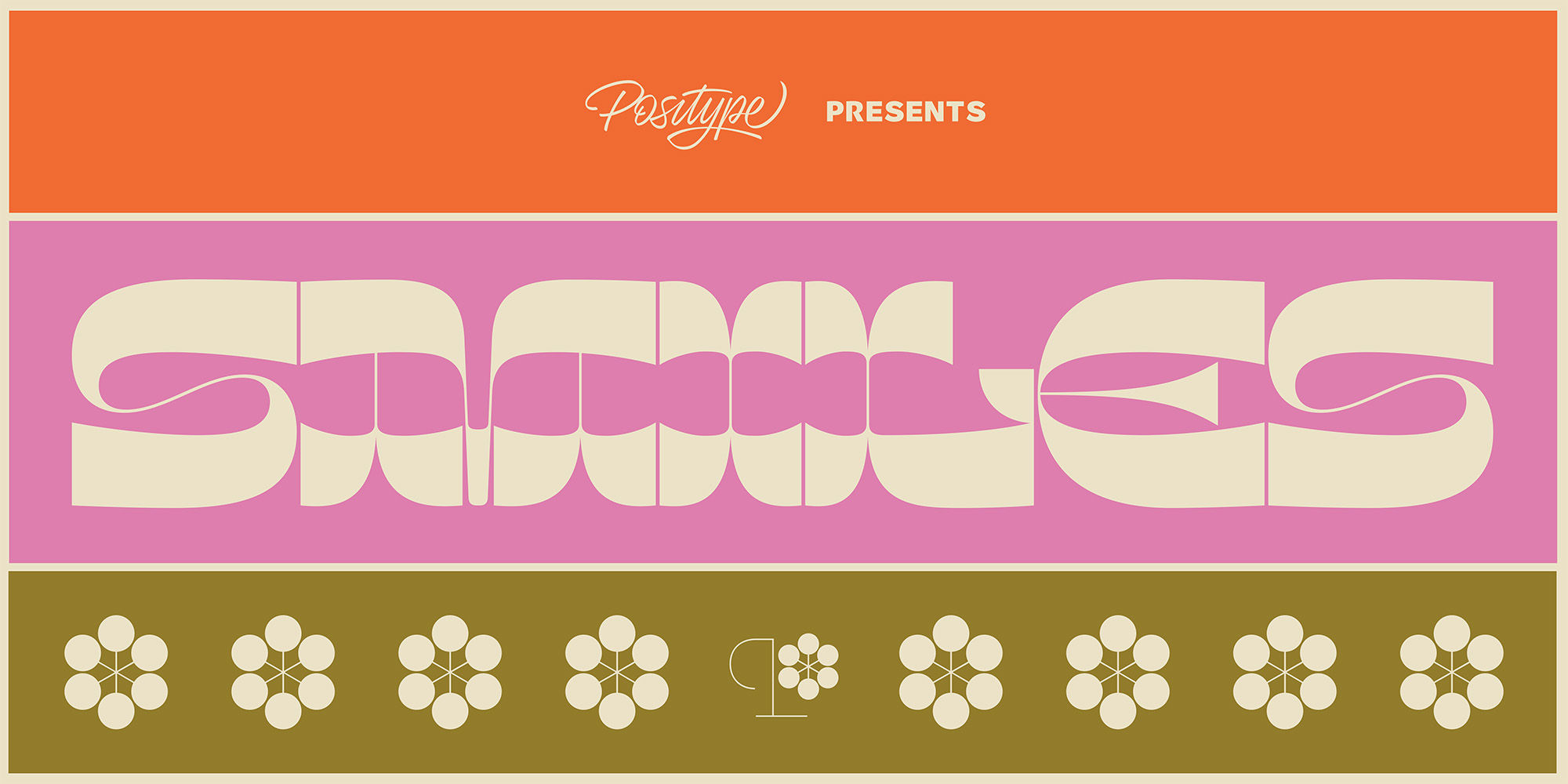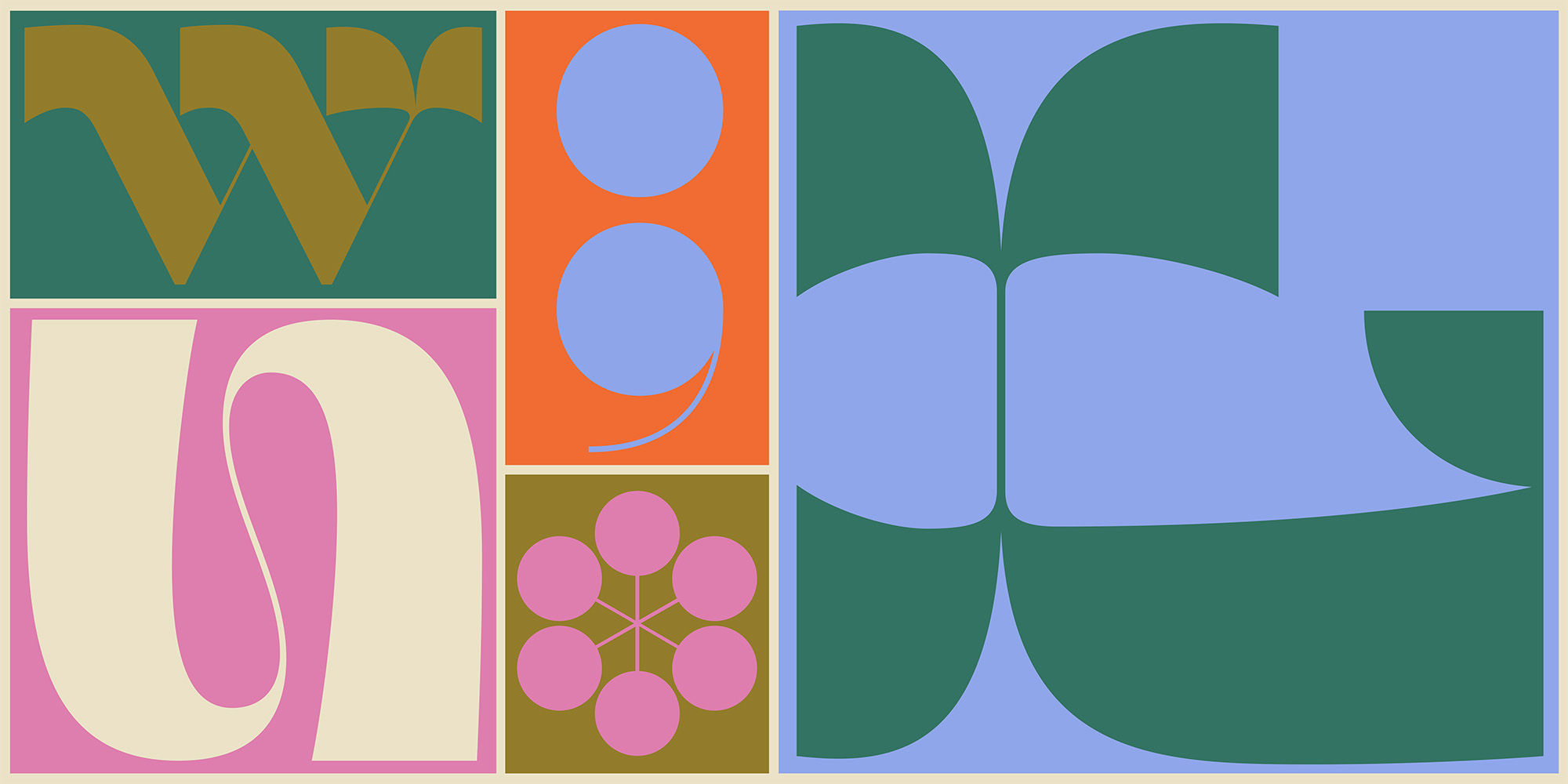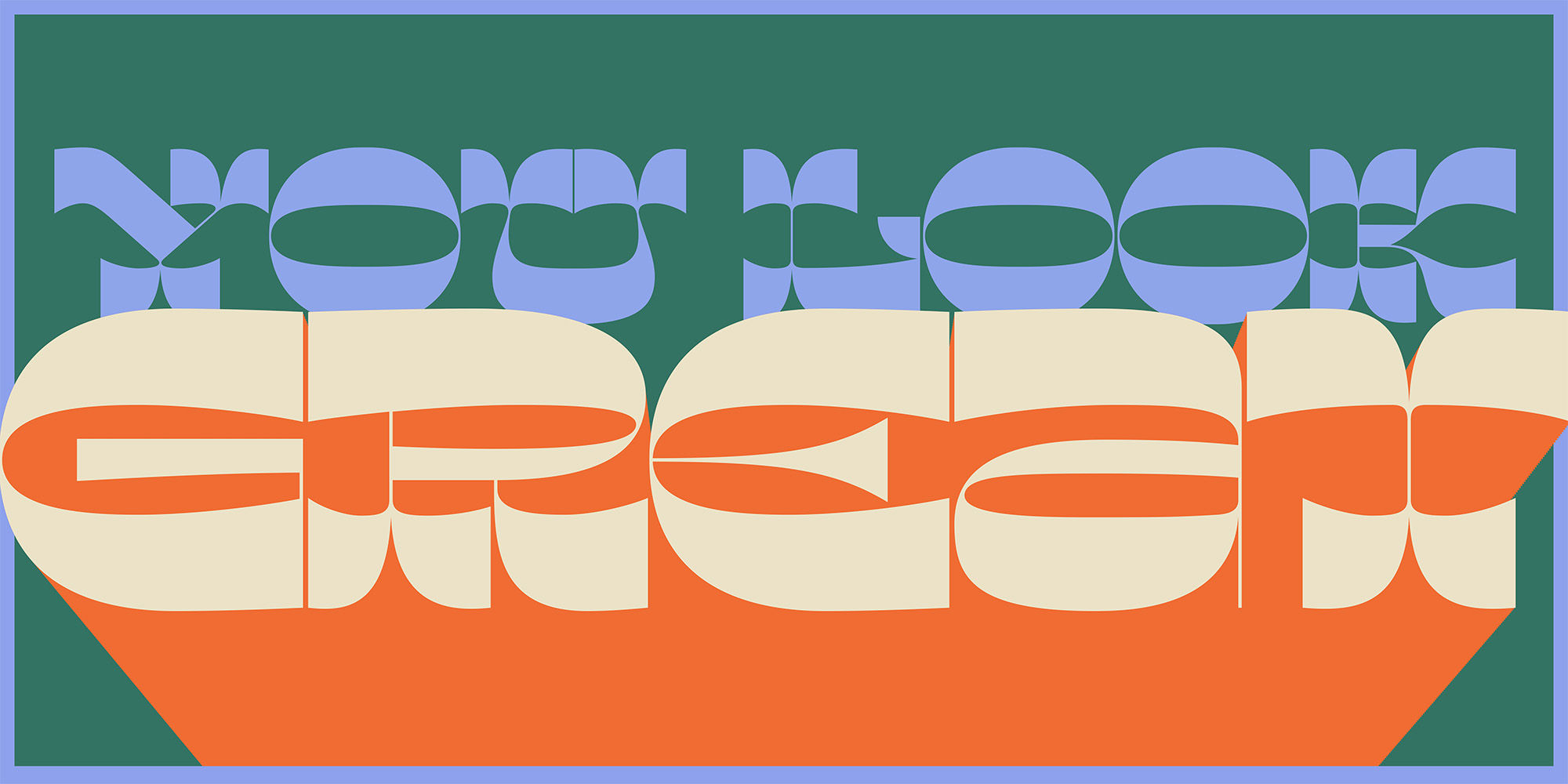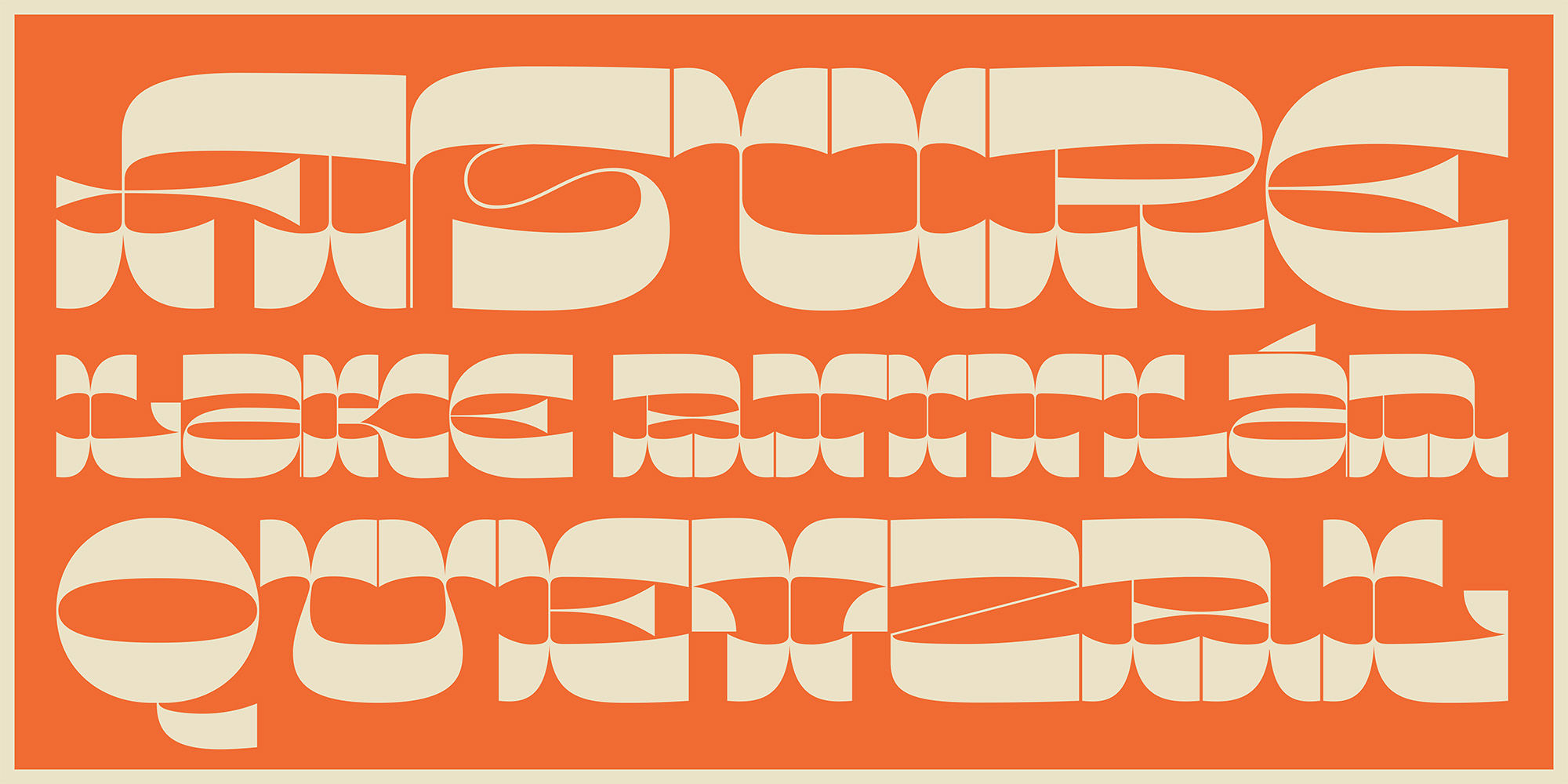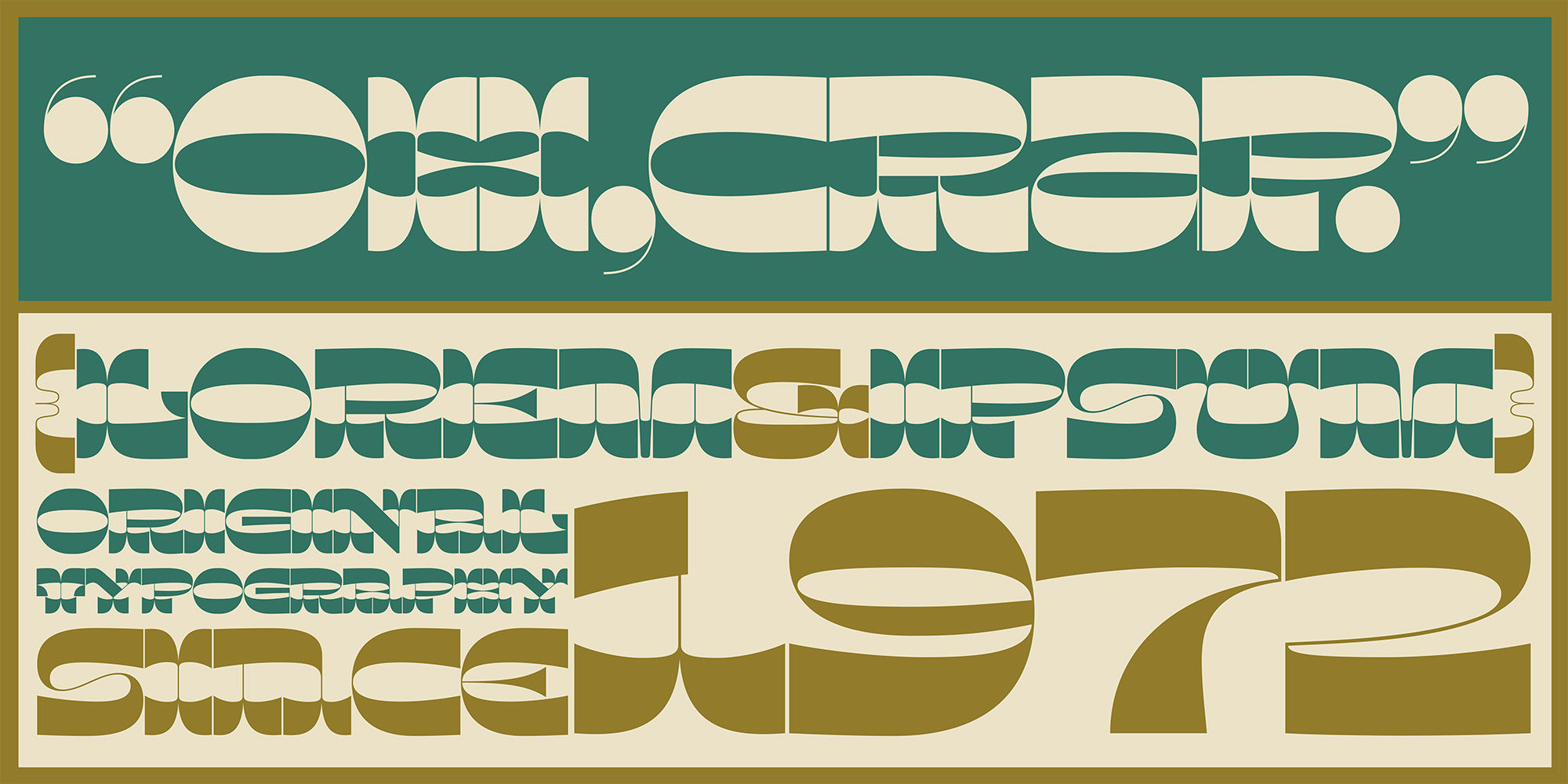
SmiLEs
Sometimes, you just need to draw something fun. Smiles explores influences from wood type designs mixed with reverse contrast (and a bit of whimsy). The immenseness of letterforms warranted drawing lowercase options in a more biform configuration, sharing the cap height instead, while the bifurcated serifs and tight spacing create fun undulations along the baseline… allowing for more confident and energetic settings.